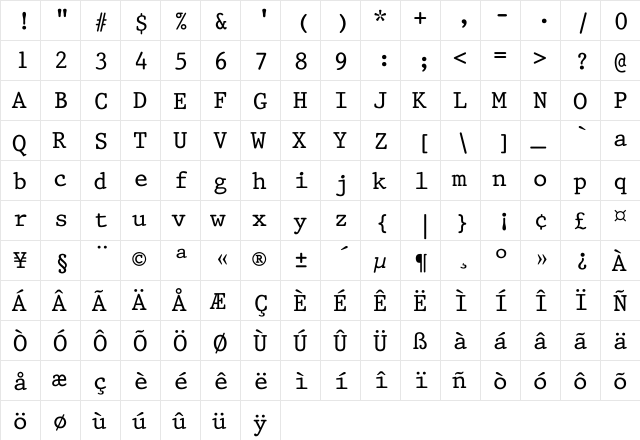
Shalemar Regular Font Preview
Shalemar Regular
Design Context for Shalemar Typeface
Shalemar is a composed and adaptable typeface that performs quietly and consistently across a wide range of design contexts.